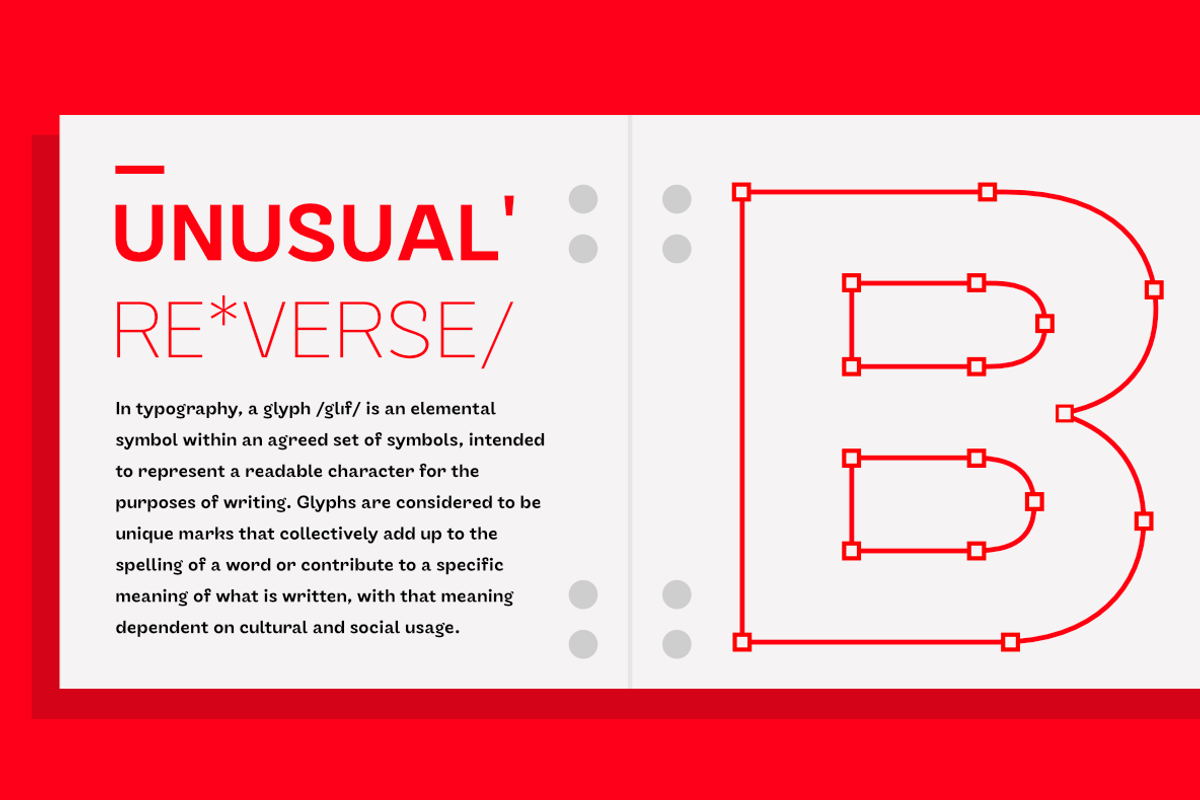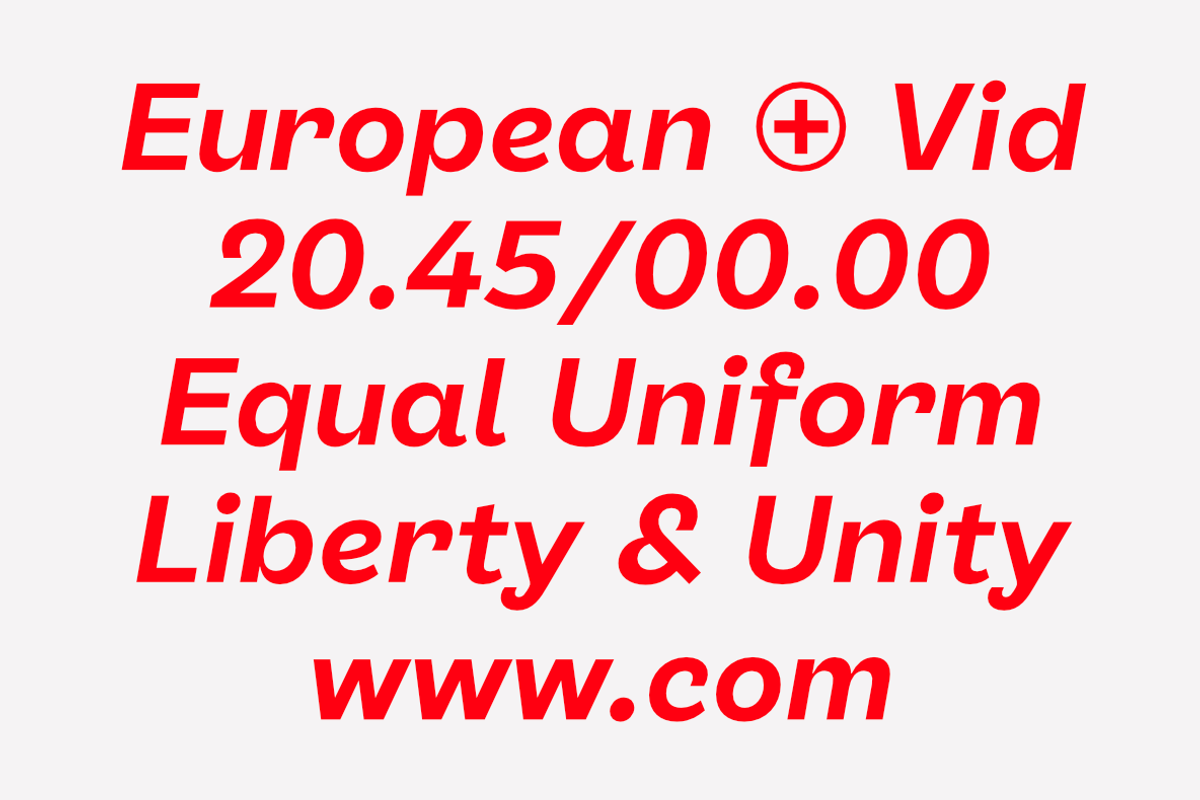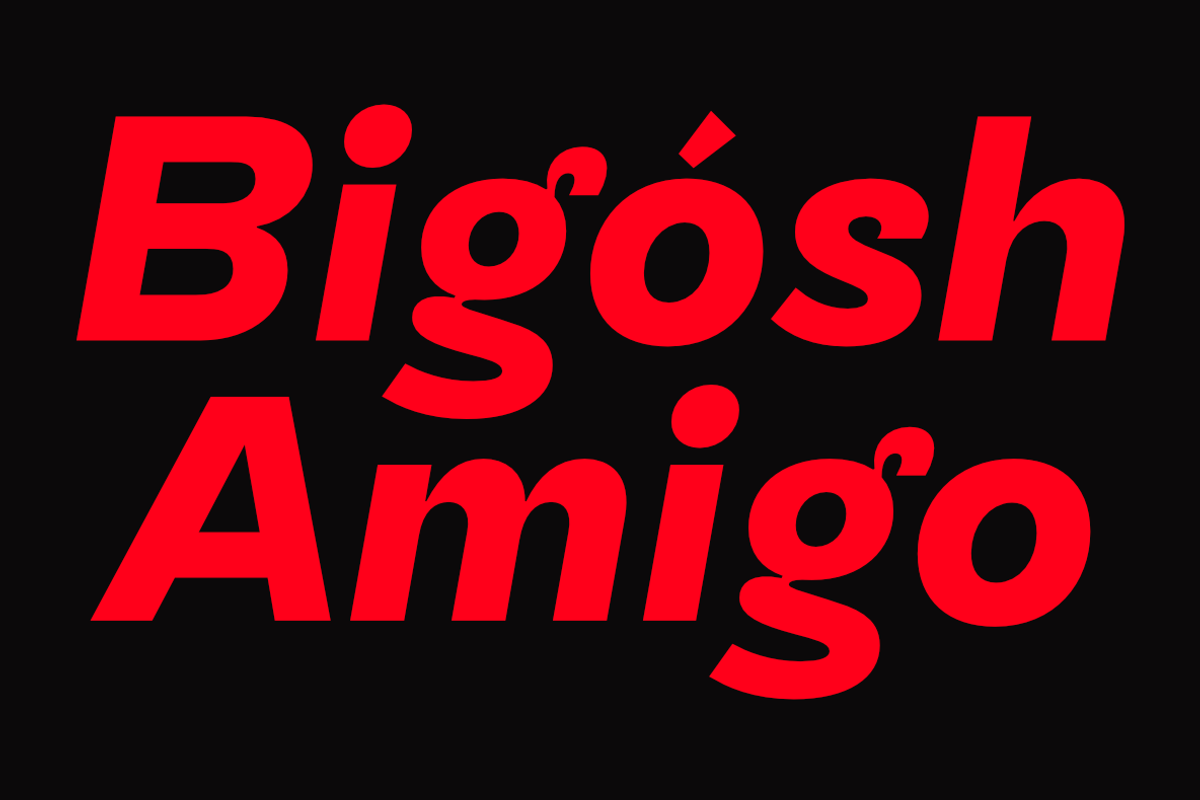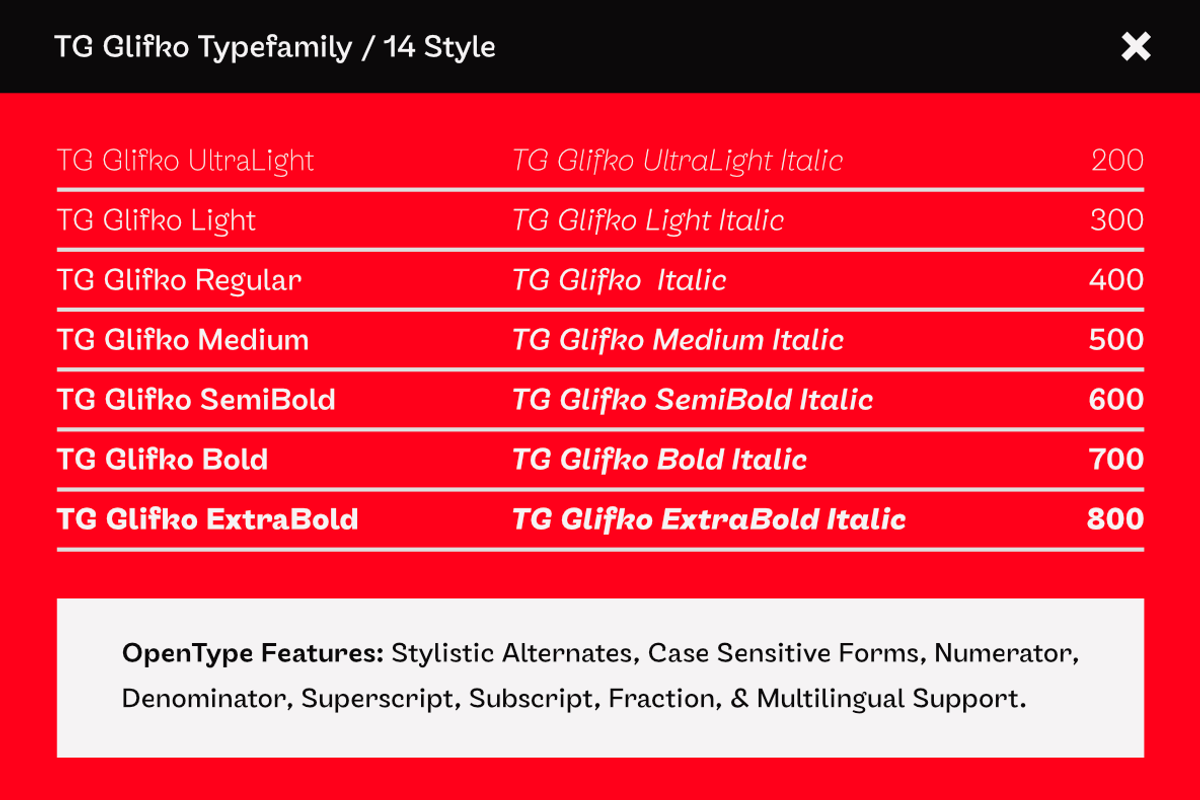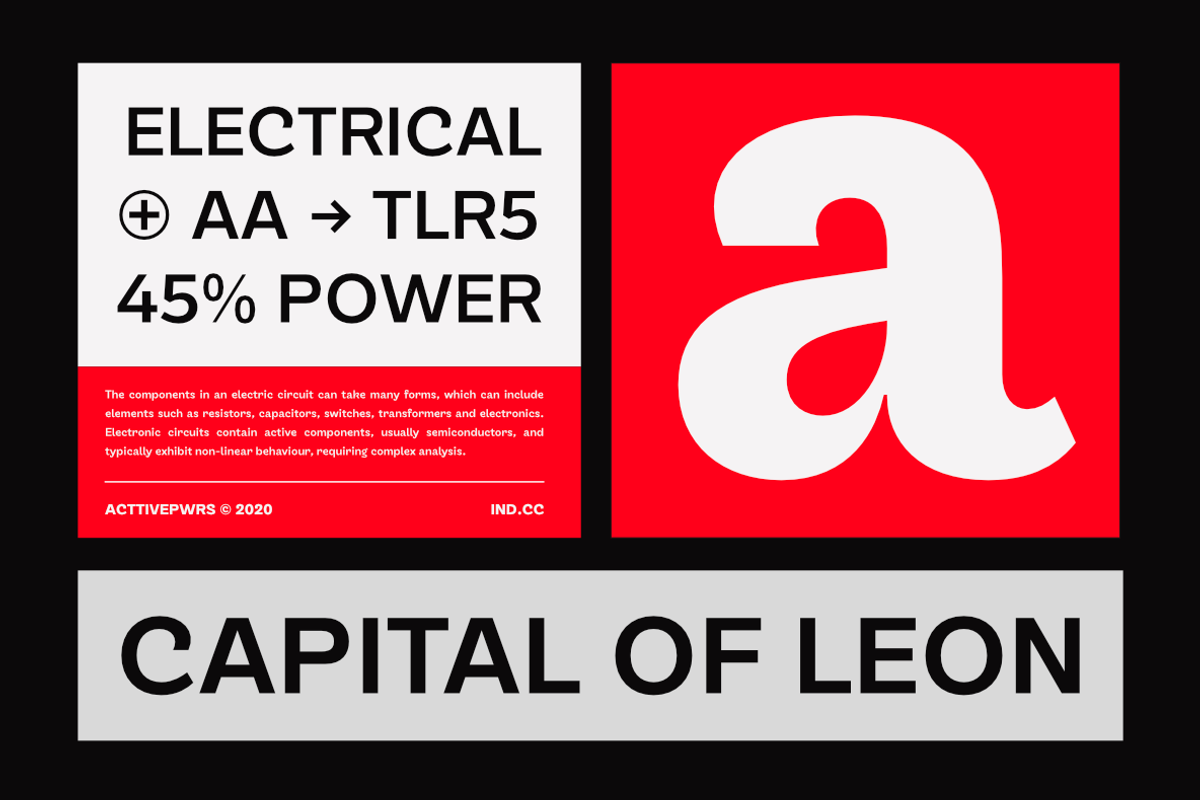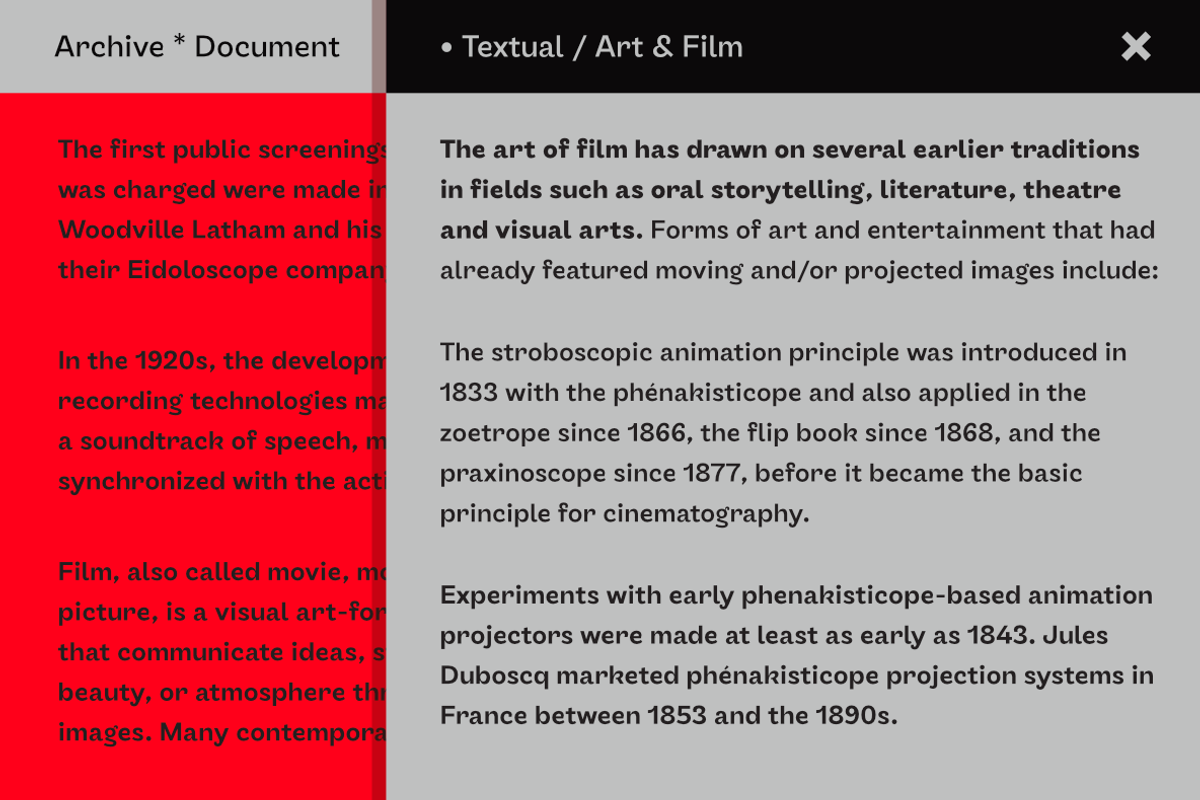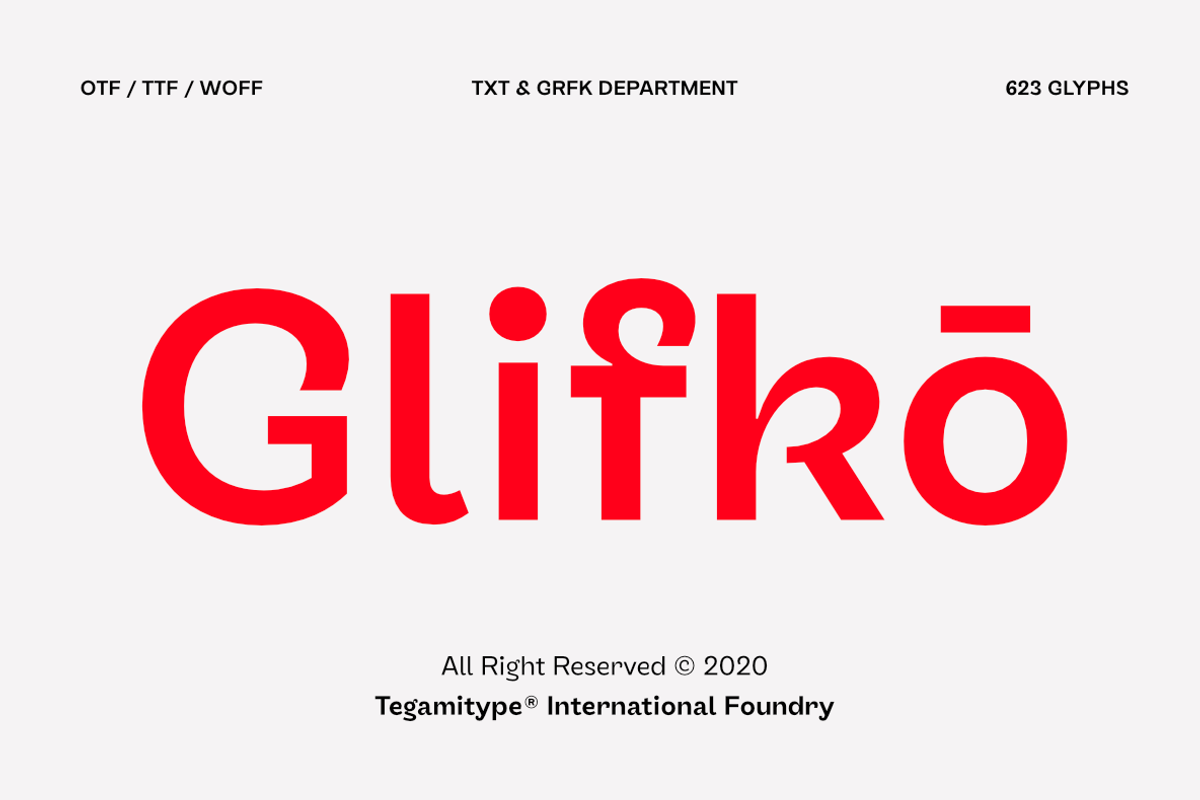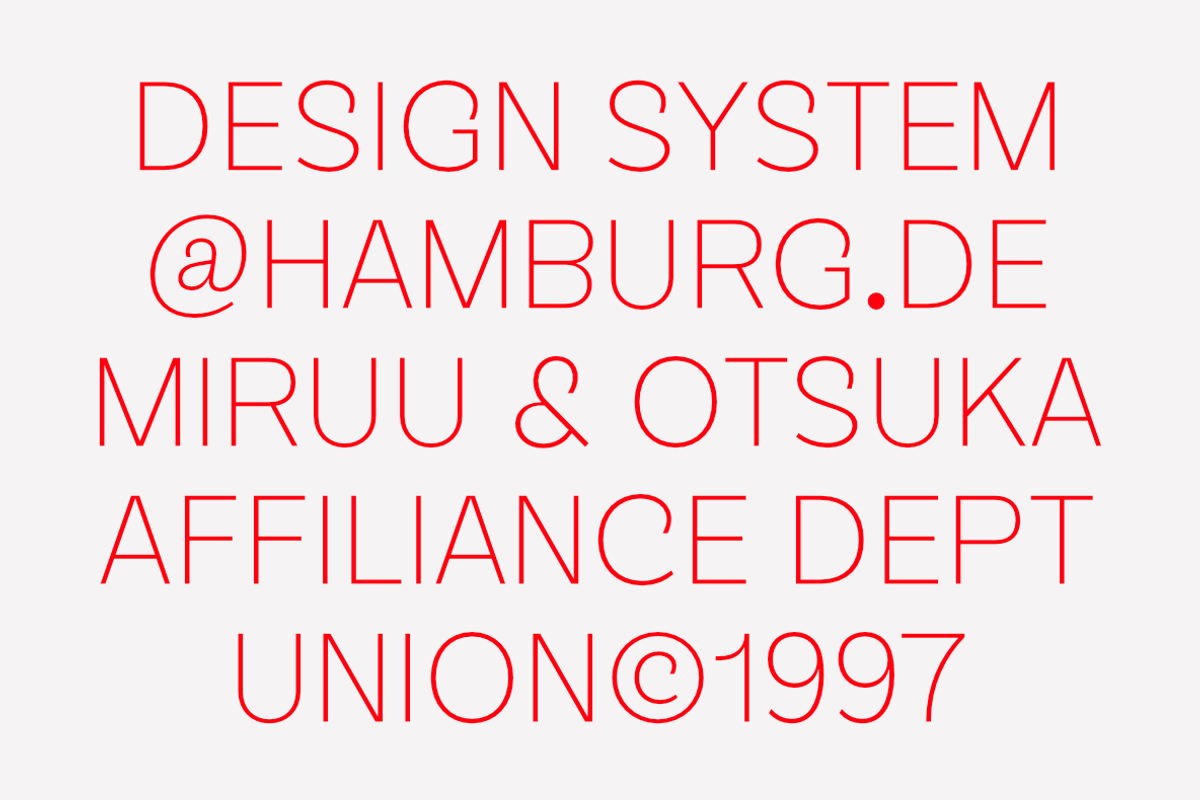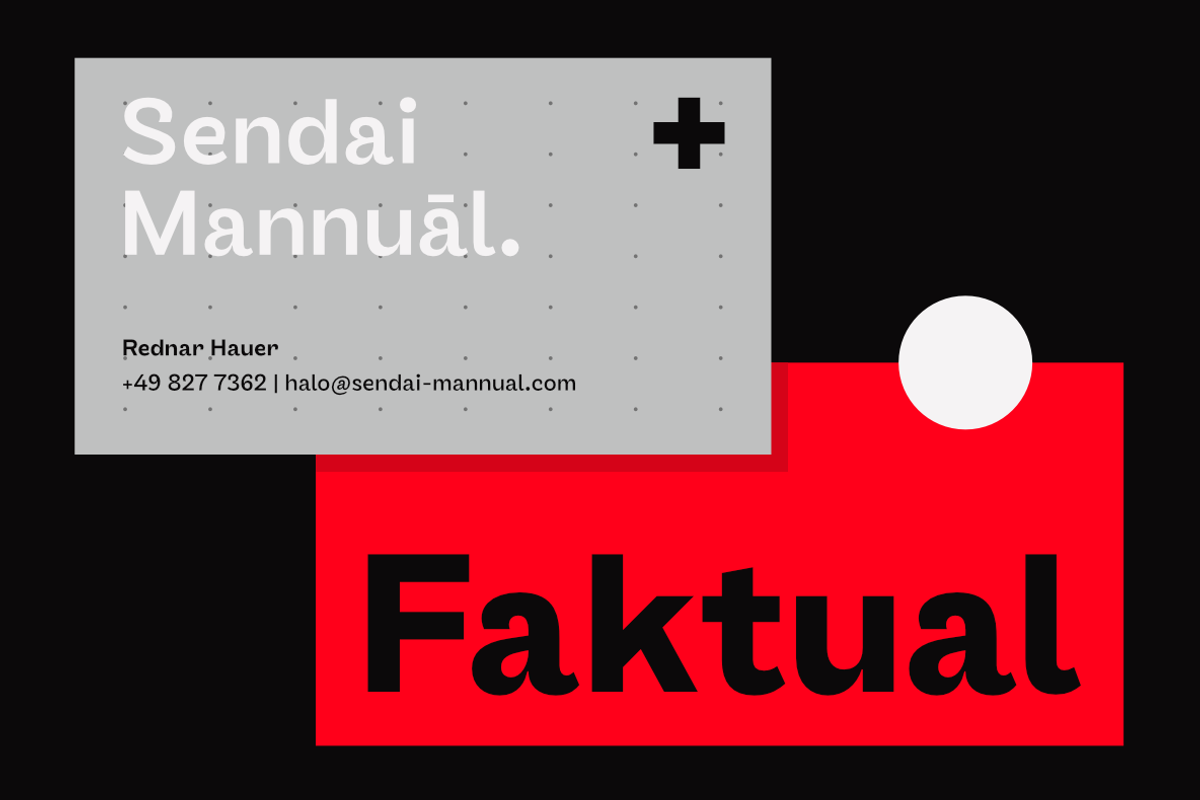
TG Glifko
TG Glifko is a new contemporary sans-serif grotesque typeface with a combination of large and small aperture, make Glifko feel quirky, dynamic, and unusual. TG Glifko works excellent for display applications and still looks gorgeous in small size.
It comes in seven different weights, from ultra-light to extra black, and matches with italic. They also supported various OpenType features, like stylistic alternates, case-sensitive forms, numerators, denominators, superscripts, subscripts, fraction, and multilingual support, coverage more than 200 languages.